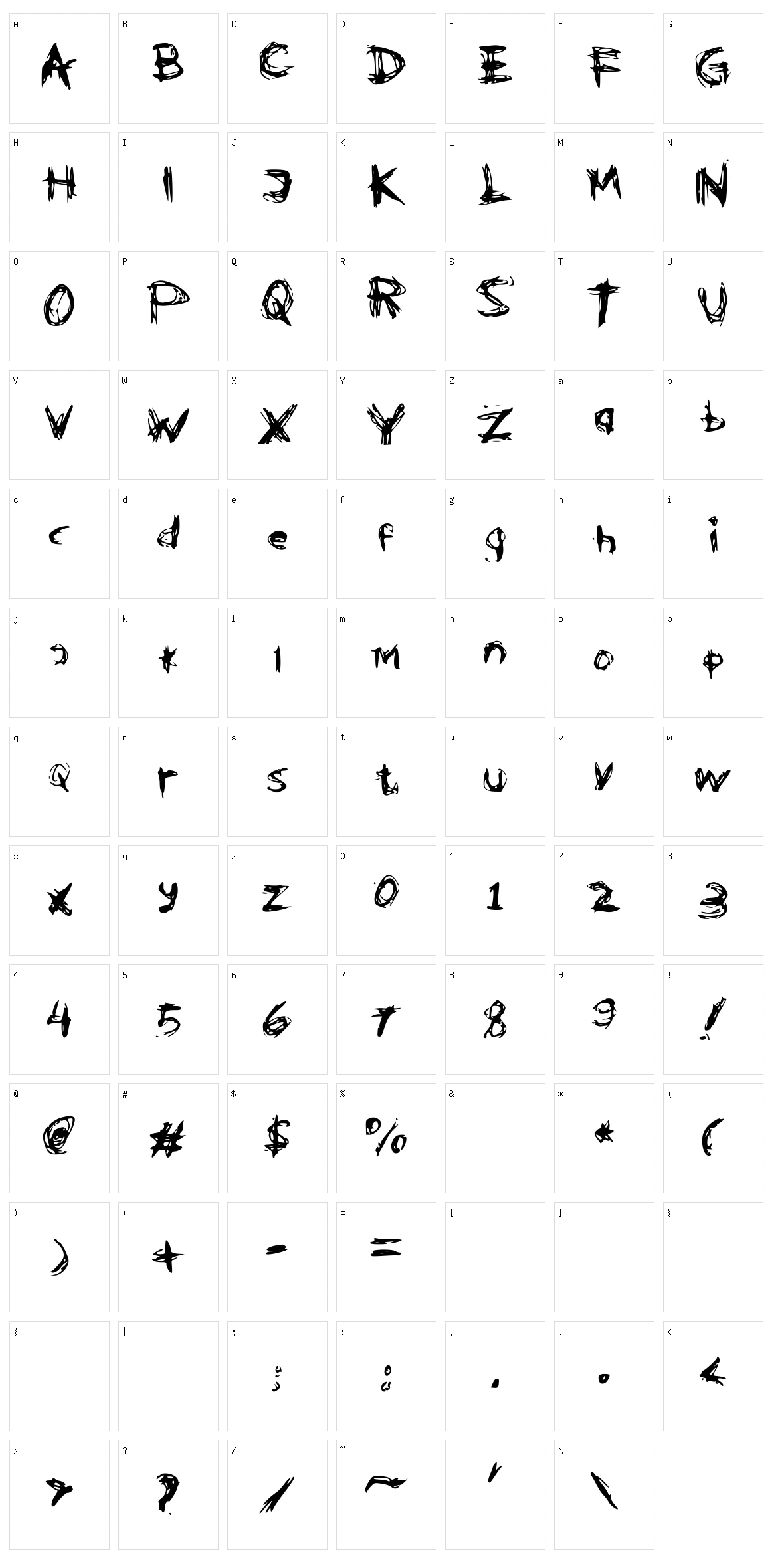
The free font Klepto Opera Grunge is carefully designed by grungee jumping, showcasing a thoughtful balance of creativity and usability and falls under the Trash font style. When you download the ZIP file, it contains only 26.46 KB of font files, making it lightweight and quick to download. Please review the license details below to understand permitted usage and distribution rights. If license information is not available, we recommend using this font for personal projects only or contacting the author directly for commercial usage permissions.